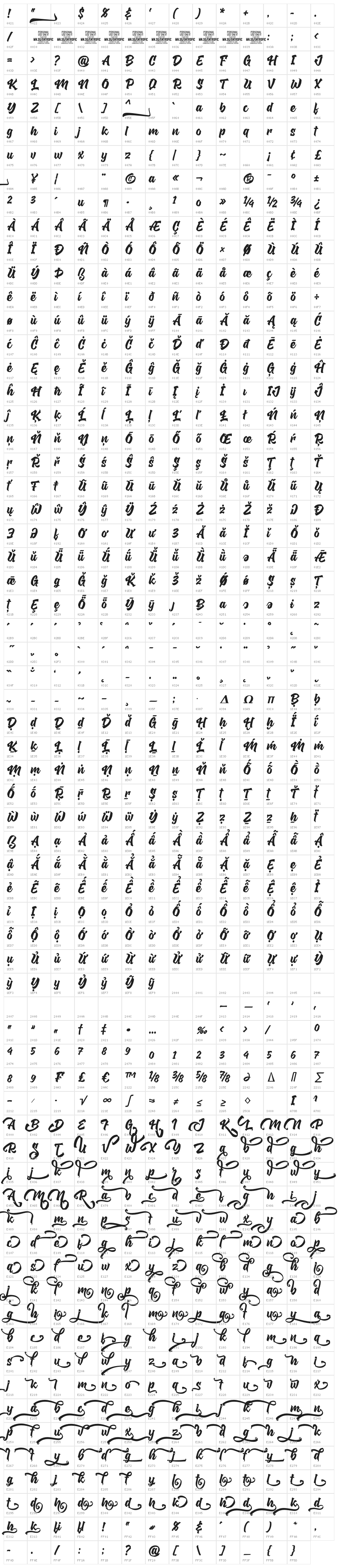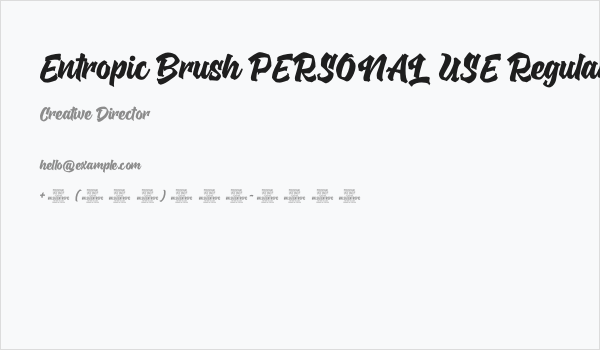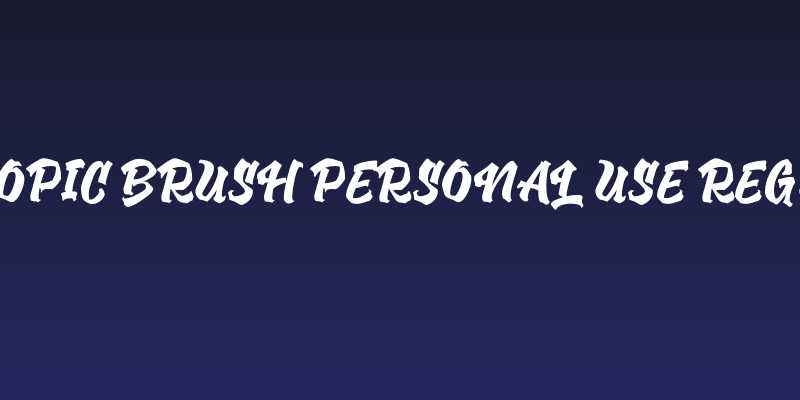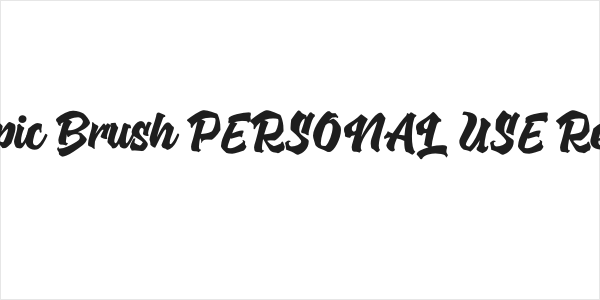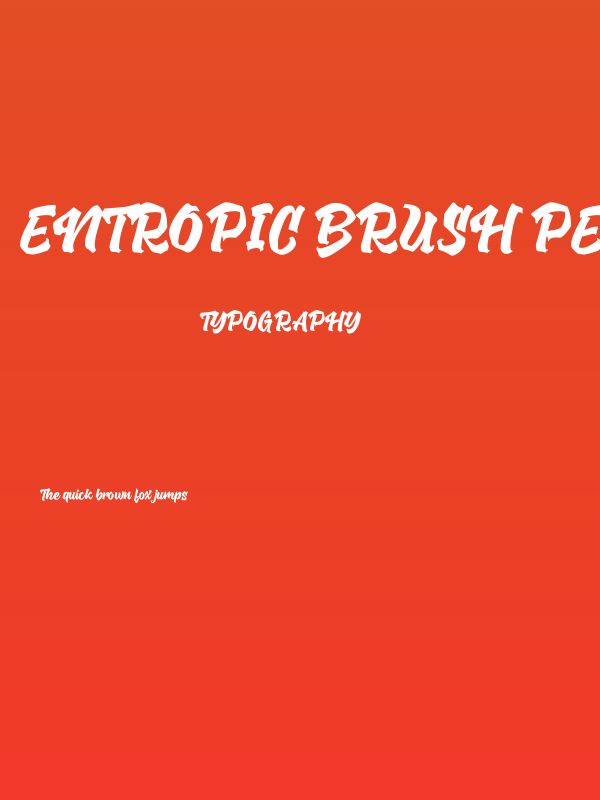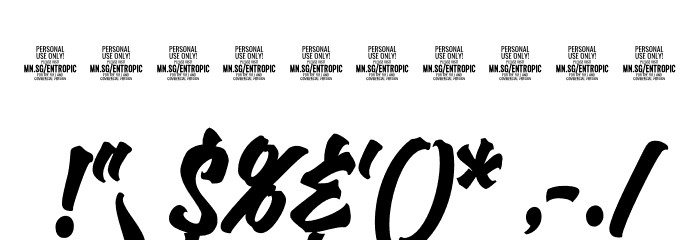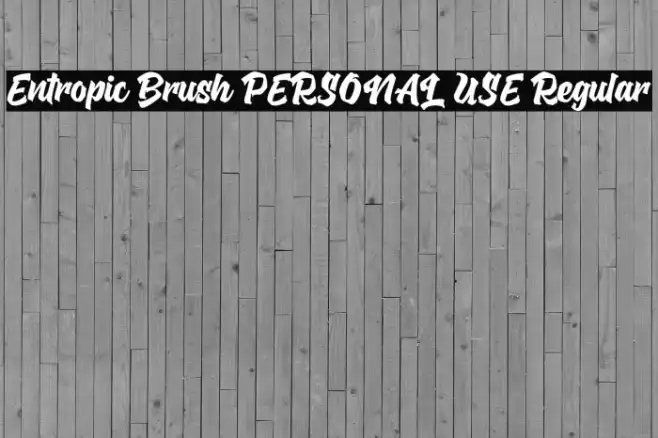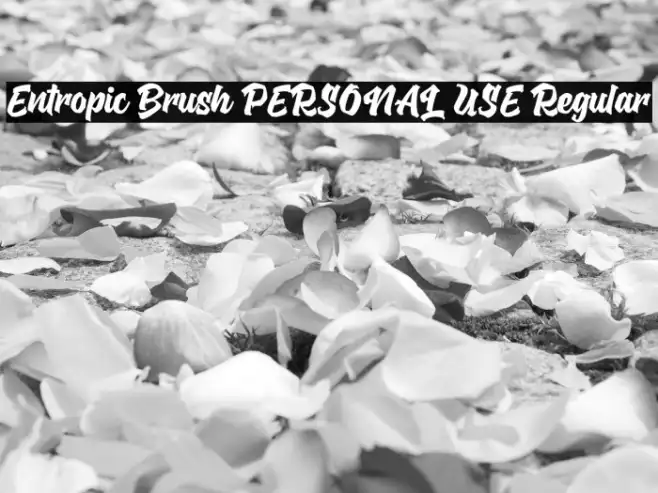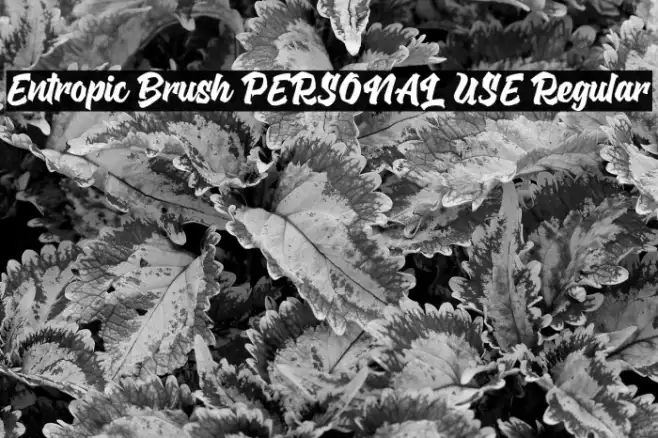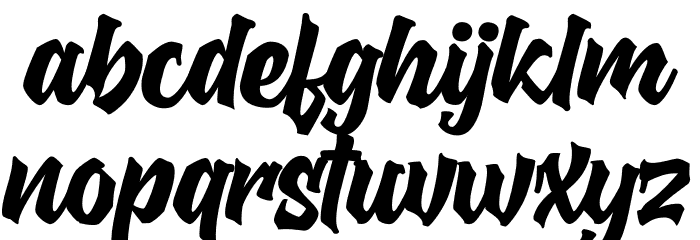
Entropic Brush PERSONAL USE Regular Font
Entropic Brush PERSONAL USE Regular Description
This font features a bold and energetic brush style, characterized by its dynamic and fluid strokes. The uppercase and lowercase letters exhibit a sense of movement, with each character appearing as if it was painted with a swift, confident hand. The font's design includes sharp angles and smooth curves, creating a lively and expressive appearance. The numbers and special characters maintain the same brush-like quality, ensuring consistency across all elements. This font is ideal for projects that require a strong, artistic touch.
| Use Case | Headlines, Logos, Artistic projects |
| Proposed Projects | Ideal for posters, branding, artistic projects, and headlines that require a bold, expressive touch. |